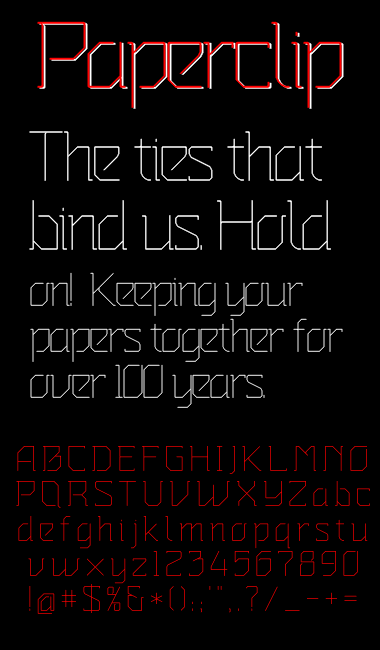
Paperclip
Inspired by
Agrafa
What an excellent font. 10/10
Really like it, although there are a few characters I'm not 100% for.
B,C,J,M,Q,x,3,4,@,%,&
If it's okay with you, i'd like to do a clone, with my takes on them.
Top job though, very inspiring.
Added my interpretation.